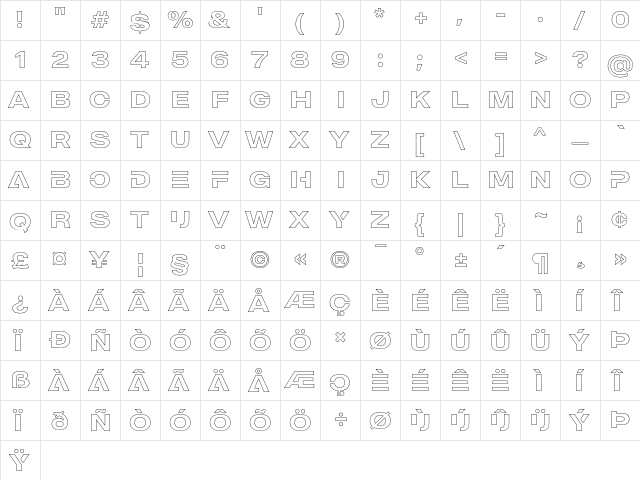
MADE Outer Sans Outline Alt Medium
| Foundry | MadeType |
| Designer | MadeType |
Design Context for MADE Outer Sans Outline Alt Typeface
MADE Outer Sans Outline Alt is built around its visual character rather than neutral utility — its distinctive forms are designed to make an impression at display sizes.
Font Pairing: Pair with a clean neutral sans-serif for body copy to let MADE Outer Sans Outline Alt's character lead without overwhelming the composition.
Pro Tip: Treat MADE Outer Sans Outline Alt as the centrepiece of your typographic hierarchy. One strong heading set in a decorative face can carry an entire layout.